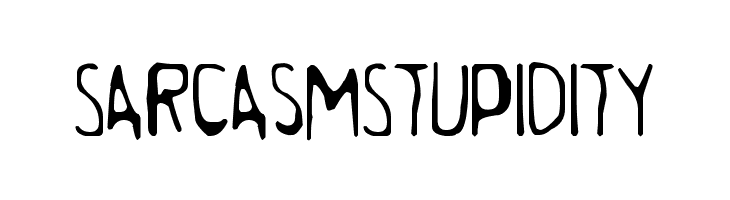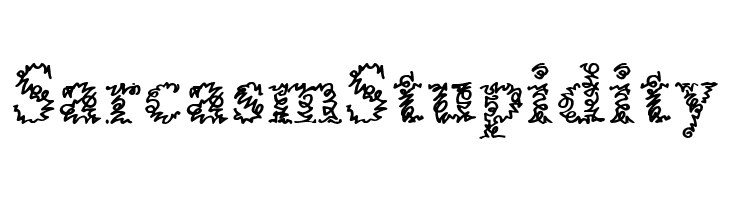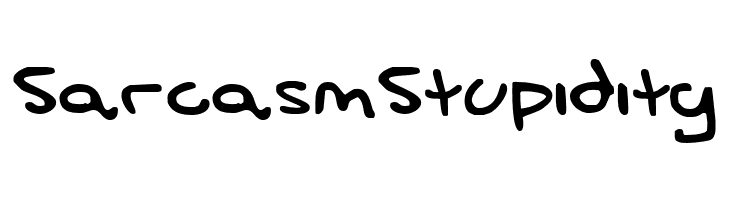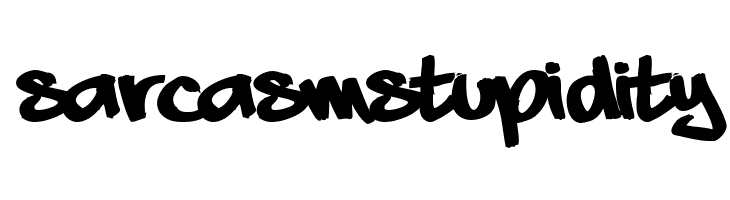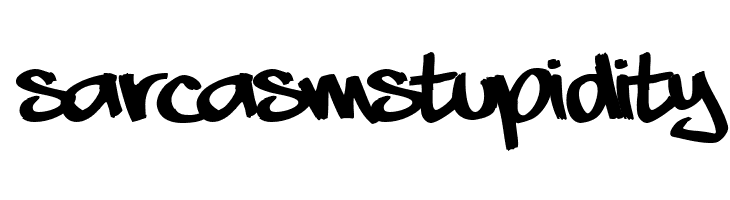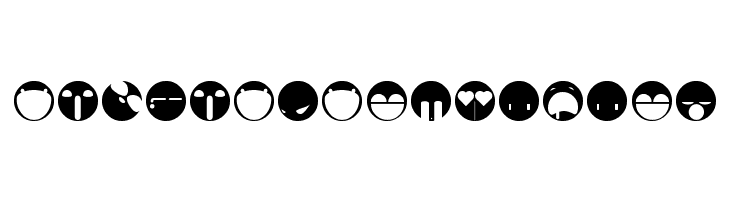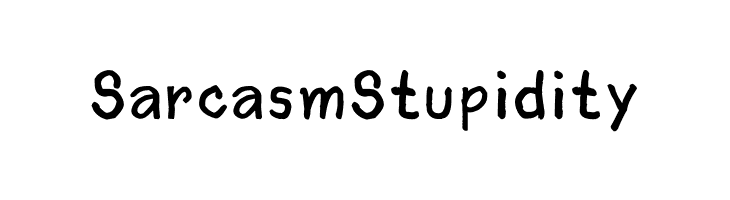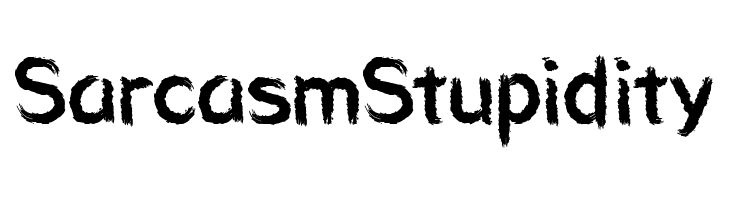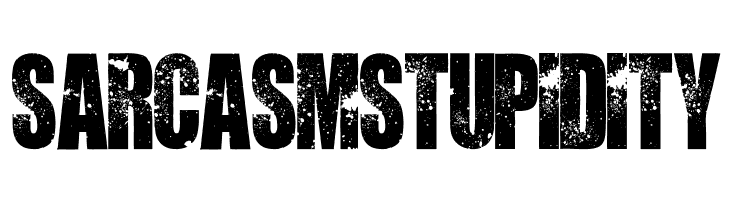
• Arthur Gothic
A bold, Gothic-inspired font with sharp, angular lines and high contrast.
• Artist-Modern
A modern, artistic font with tall, slender letterforms and subtle curves.
• ArtNouveauCaps
A bold, decorative Art Nouveau font with intricate line work and geometric patterns.
• ArtParticles
A pictogram dingbat font with hand-drawn illustrations and landmarks.
• As pedras da Belle Otero
( Fonts by Ruben Prol - www.ipanemagrafica.com )
A pixelated, retro font inspired by early digital displays.
• Asian Art
A bold, framed font inspired by traditional Asian calligraphy with a modern twist.
• Asian Art II
A bold, geometric font inspired by traditional Asian calligraphy, enclosed in rectangular frames.
• ASIAN INFLUENCE
( Fonts by www.urbanhookupz.com )
A bold, fluid script font with dramatic, calligraphic strokes.
• Aspades Regular
( Fonts by Ana Svalina )
A lively and expressive handwritten font with fluid strokes.
• Asphyxiate Regular
( Fonts by Espen Morten Kvalheim - www.unbornchikken.com )
A dynamic, handwritten-style font with expressive, uneven strokes.
• AstrobatsInvers
A bold, modern collection of abstract and geometric symbols with high contrast.
• AstrologyCelticSymbols
A decorative symbol font blending Celtic, astrological, and mythological imagery.
• AstroSymbolsThree
Decorative symbol font with zodiac and astrology-themed icons.
• AtlandSketches BB
A playful, sketch-like handwritten font with dynamic strokes and a casual feel.
• AtlandSketches BB Italic
A dynamic, cursive script font with an italicized, handwritten style.
• AtlandSketchesBB
A playful, hand-drawn font with a sketch-like, artistic style.
• AtlandSketchesBB-Italic
A dynamic, italicized handwritten font with a sketch-like appearance.
• AtlantisHeadBold
( Fonts by www.floodfonts.com )
A bold, slab serif font with strong, block-like serifs and even spacing.
• AtlantisTextBold